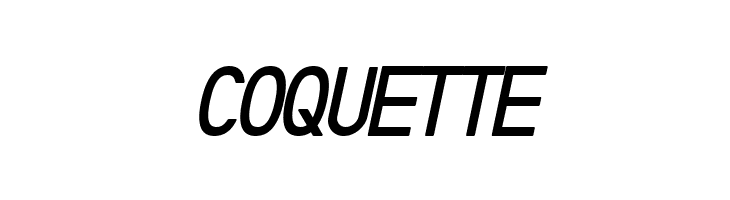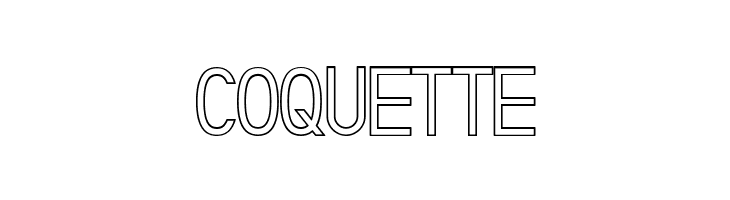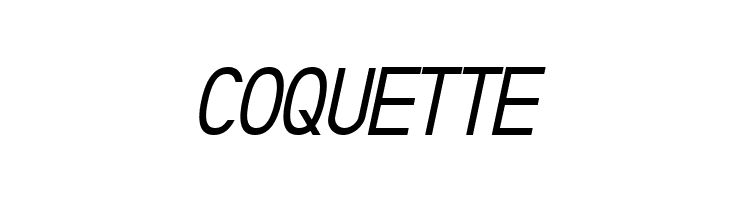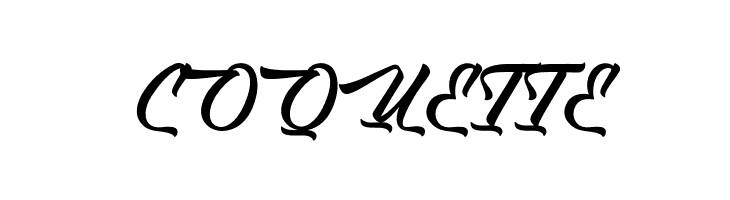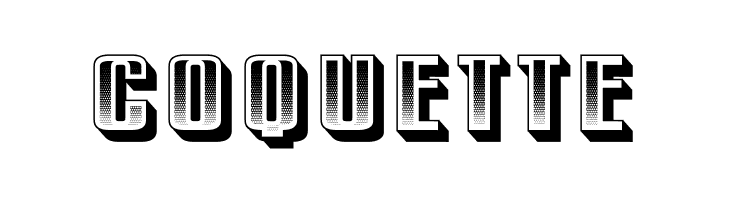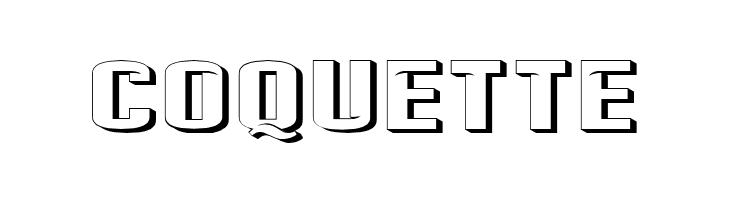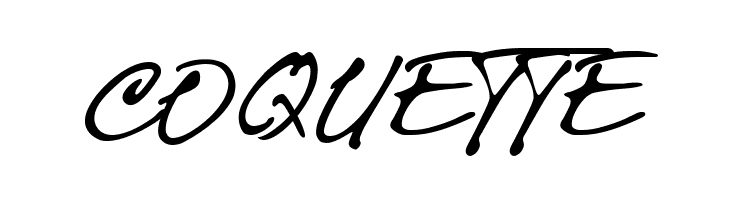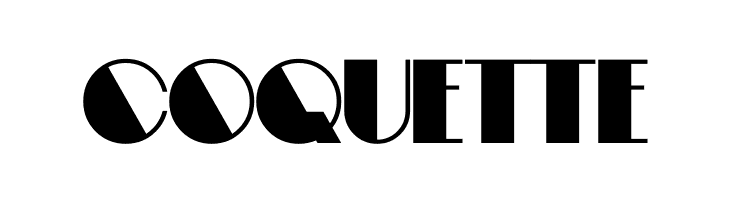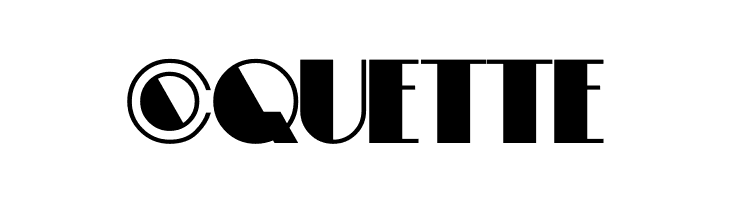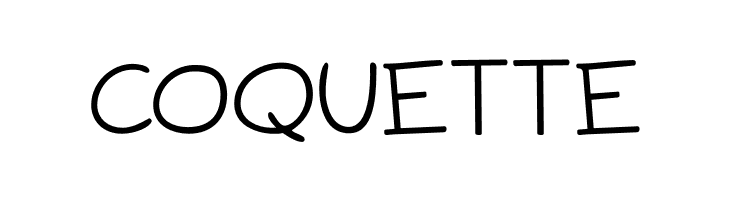
( Fonts by www.peter-wiegel.de. Personal-use only. For commercial use please contact owner. ) A bold, geometric typeface with clean lines and modern aesthetics. Download 463 Downloads@WebFont
( Fonts by Peter Wiegel - www.peter-wiegel.de - Personal-use only. For commercial use please contact owner. ) A bold, modern sans-serif font with clean lines and geometric shapes. Download 58 Downloads@WebFont
( Fonts by www.peter-wiegel.de. Personal-use only. For commercial use please contact owner. ) A bold, italicized font with a modern and dynamic style. Download 243 Downloads@WebFont
( Fonts by Peter Wiegel - www.peter-wiegel.de - Personal-use only. For commercial use please contact owner. ) A bold, italicized font with a modern and dynamic style. Download 73 Downloads@WebFont
( Fonts by www.peter-wiegel.de. Personal-use only. For commercial use please contact owner. ) A sleek, italicized font with a modern and dynamic style. Download 199 Downloads@WebFont
( Fonts by Peter Wiegel - www.peter-wiegel.de - Personal-use only. For commercial use please contact owner. ) A modern, italic font with clean lines and a slightly condensed style. Download 72 Downloads@WebFont
( Fonts by www.peter-wiegel.de. Personal-use only. For commercial use please contact owner. ) A modern, outlined geometric font with a clean and minimalistic style. Download 484 Downloads@WebFont
( Fonts by Peter Wiegel - www.peter-wiegel.de - Personal-use only. For commercial use please contact owner. ) A modern, geometric outline font with consistent line thickness and open structure. Download 54 Downloads@WebFont
( Fonts by www.peter-wiegel.de. Personal-use only. For commercial use please contact owner. ) A modern, geometric sans-serif font with a clean and balanced design. Download 916 Downloads@WebFont
( Fonts by Peter Wiegel - www.peter-wiegel.de - Personal-use only. For commercial use please contact owner. ) A modern, geometric sans-serif font with a clean and balanced appearance. Download 53 Downloads@WebFont
( Fonts by Vladimir Nikolic - www.creativefabrica.com/designer/vladimirnikolic/ - Personal-use only. For commercial use please contact owner. ) A bold, geometric font with a three-dimensional shadow effect. Download 32 Downloads@WebFont
( Fonts by Azetype Studio - Muh. Aswar - Personal-use only. For commercial use please contact owner. ) A dynamic, fluid handwritten script with elegant cursive strokes. Download 48 Downloads@WebFont
( Fonts by Vultype - Candra Hamdani - Personal-use only. For commercial use please contact owner. ) A playful, flowing script font with smooth, connected strokes. Download 42 Downloads@WebFont
( Fonts by a Galdino Otten - galdinootten.com . Personal-use only. For commercial use please contact owner. ) A bold, collegiate-style font with an outline and shadow effect. Download 297 Downloads@WebFont
( Iqrashahzadi ) A futuristic, geometric font with bold, angular shapes and contrasting strokes. Download 57 Downloads@WebFont
( Fonts by Pak DuaTiga - Personal-use only. For commercial use please contact owner. ) An elegant, italic script font with flowing, interconnected letters and ornate swashes. Download 100 Downloads@WebFont
( Fonts by Hanoded - David Kerkhoff - Personal-use only. For commercial use please contact owner. ) A playful, hand-drawn font with a whimsical and friendly style. Download 46 Downloads@WebFont
( Fonts by Manfred Klein. Free for private and charity use. Free for commercial with donation to organizations ) A decorative, creature-themed display font with bold, illustrative glyphs. Download 127 Downloads@WebFont
( Fonts by Vladimir Nikolic - www.creativefabrica.com/designer/vladimirnikolic/ - Personal-use only. For commercial use please contact owner. ) A bold, three-dimensional font with dotted inner detailing and strong shadow effects. Download 48 Downloads@WebFont
( Fonts by Jeff Bellini - Personal-use only. For commercial use please contact owner. ) A decorative and whimsical font with intricate flourishes and embellishments. Download 60 Downloads@WebFont
( Fonts by Pandan Wangi - Personal-use only. For commercial use please contact owner. ) A modern, geometric sans-serif font with clean lines and a sleek appearance. Download 291 Downloads@WebFont
( Fonts by Pandan Wangi - Personal-use only. For commercial use please contact owner. ) A modern, geometric sans-serif font with a clean and balanced design. Download 46 Downloads@WebFont
( Fonts by Sinister Fonts - Chad Savage - Personal-use only. For commercial use please contact owner. ) A bold, dripping font ideal for horror-themed designs. Download 98 Downloads@WebFont
( Fonts by www.chequered.ink - Chequered Ink - Personal-use only. For commercial use please contact owner. ) A bold, angular font with a futuristic and aggressive design. Download 651 Downloads@WebFont
( Fonts by Nowak.tv - Bartek Nowak - Personal-use only. For commercial use please contact owner. ) A bold, dynamic font with tall, narrow letterforms and high contrast strokes. Download 37 Downloads@WebFont
( Fonts by imagex - Personal-use only. For commercial use please contact owner. ) A bold, retro font with a hand-drawn, vintage movie poster style. Download 30 Downloads@WebFont
( Fonts by Daylight Fonts - Personal-use only. For commercial use please contact owner. ) A bold, geometric font with a modern and artistic design. Download 67 Downloads@WebFont
( Fonts by Daylight Fonts - Personal-use only. For commercial use please contact owner. ) A bold, geometric font with a modern and futuristic style. Download 68 Downloads@WebFont